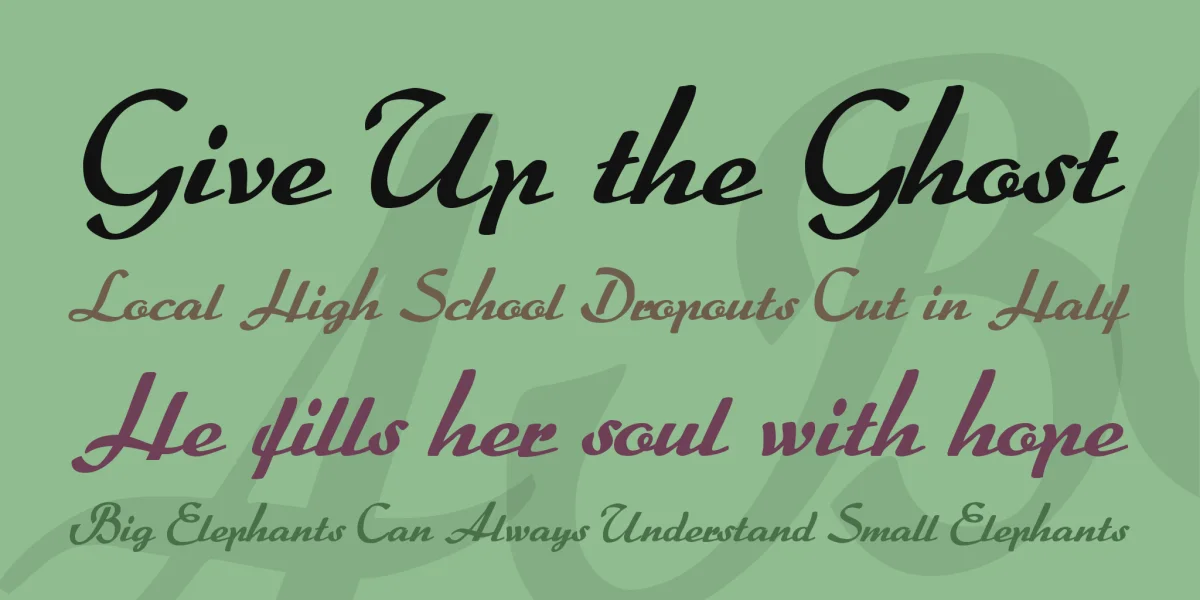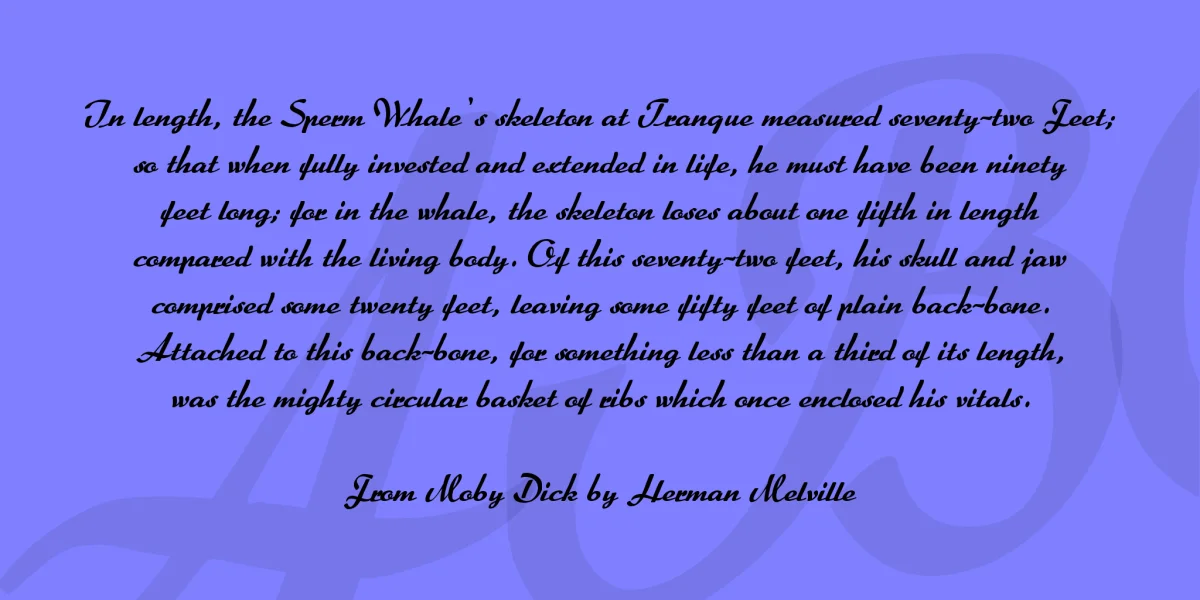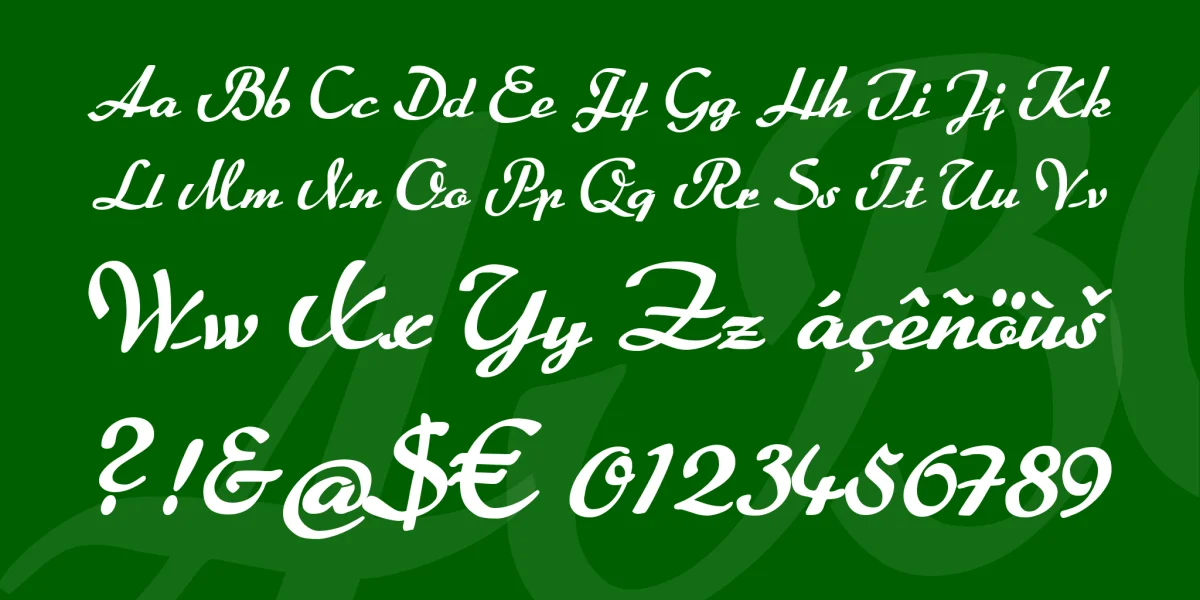
Google translation of the original description in German: A new software was recommended to me, a program to vectorize pixel graphics. And this new software was supposed to be so much better than anything I could use so far, so that it almost borders on magic. Of course I had to try, because tracing scanned originals to use it to construct a new font, is still a fairly time-consuming thing. So I flipped through my photo collection to use for the test as complete as possible picture font, if the manufacturer of this software offers free first two vectorization of, of which you can then download the finished graphics, before deciding for this customer service money pay. However, these test-vectorization are once limited in size.
After some leaves in my photo collection I then came across the font sample sheet of Arno Drescher's font Arabella favorite. Yes, I said to myself, this beautiful Arabella should be. Let's see what this digital magicians do with it. And then it started in my head to rattle: "Beautiful Arabella? Magician? There was something! "And once I had a picture of me," Sure but, the beautiful Arabella and the Wizard, or how the series also meant the fairytale bride. That was a Czech / German Fantasy series in which it was next to the beautiful Arabella, just that fairy tale bride, also a magician many years ago. And this just had the name Rumburak. What could be more, this font that should result from this test, then, will give also the name, after all we are here again two involved: the beautiful Arabella, which is only just now a font and the wizard who only just now a program.
Well, the only thing I had this to say of course, convinced really one hundred percent not me then the program yet, and it was still a lot of manual work needed from what was delivered to me there, then still a usable font to making. It will probably still take a while before software can really afford what you bring into being, draw after the curves of a font by hand. Ultimately, the workload is then also not significantly greater.